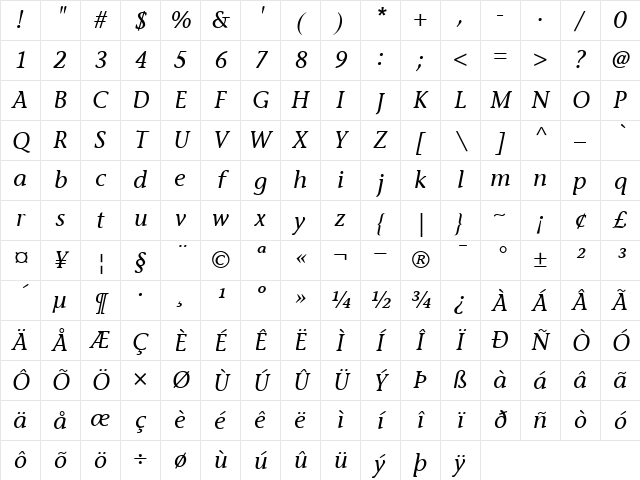
ITCStoneInformal RomanItalic
Style: RomanItalic
ITCStoneInformal Family
Design Context for ITCStoneInformal
ITCStoneInformal is a composed and adaptable typeface that performs quietly and consistently across a wide range of design contexts. The slanted form adds forward momentum and visual energy.
Pro Tip: Use ITCStoneInformal for emphasis, pull quotes, and subheadings where its slanted energy can add rhythm to the layout.